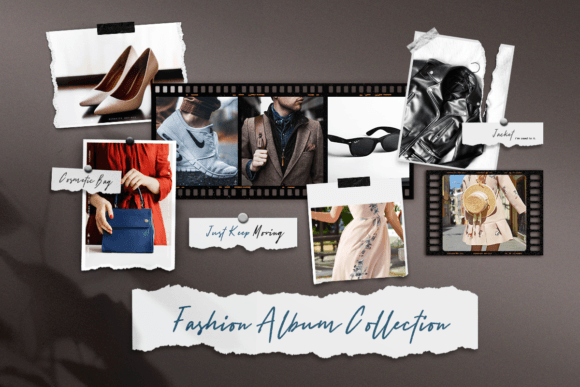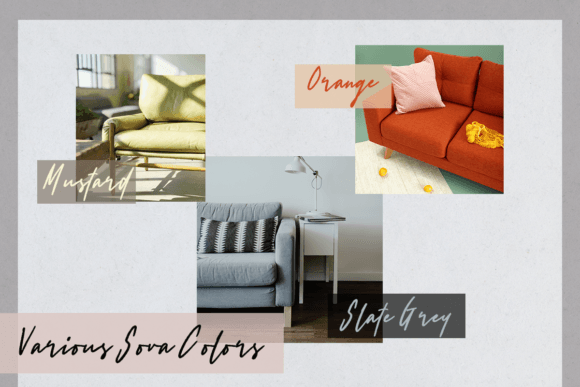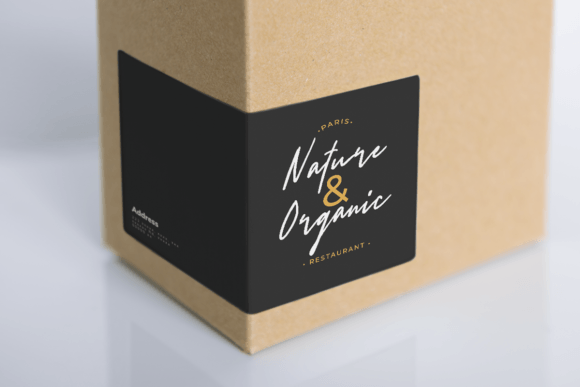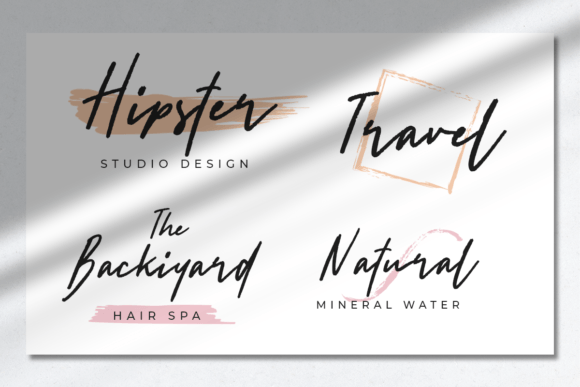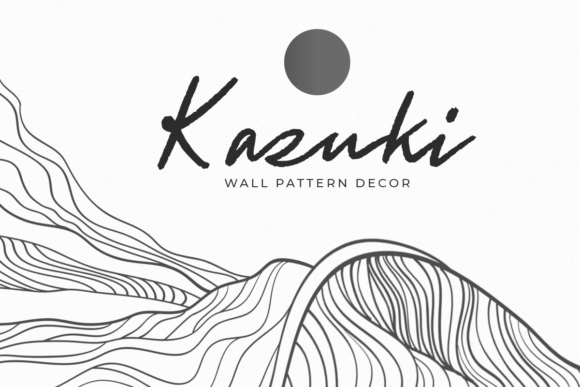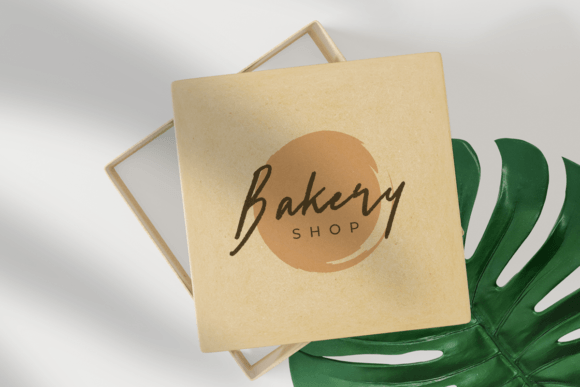
The Elegant Emily Font: A Designer’s New Best Friend
I still remember the time I was working on a wedding invitation project, and my client asked for a font that would make their special day feel like a fairytale. I scoured the internet, tried out dozens of fonts, but nothing seemed quite right. That was until I stumbled upon Emily Font. Its elegant, cursive strokes and beautiful swashes instantly captured the romantic essence of the occasion. I knew right then and there that Emily Font was going to be my go-to for all things wedding-related – and many other design projects, for that matter!
An Honest Review of Emily Font
What I Love About Emily Font ✨
- 💕 Stylish and elegant script font perfect for adding a touch of sophistication to any design
- 🎉 Extremely versatile – works beautifully on wedding invitations, thank you cards, quotes, greeting cards, logos, business cards, and more
- 👍 Well-crafted, with attention to detail and a clear focus on aesthetics
- 💫 OpenType features, including glyphs and stylistic alternates, offer endless creative possibilities
While Emily Font is an exceptional font, there are a few minor things to keep in mind:
- 🤔 Some users might find the font a bit challenging to read at very small sizes – best used at larger sizes for optimal impact
- ⚠️ Limited availability of certain characters or glyphs in certain software or platforms – always a good idea to test and ensure compatibility
The Story Behind Emily Font
Emily Font was designed with the intention of creating a beautiful, elegant script font that captures the essence of handwritten calligraphy. Inspired by classic copperplate engraving and modern calligraphy, Emily Font brings a touch of sophistication and romance to any design.
| Author | sensatype |
| Is Emily Font suitable for body text? | While Emily Font is beautiful, it’s best used for headings, titles, and short paragraphs. For longer body text, a more legible font might be more suitable. |
| Does Emily Font support OpenType features? | Yes, Emily Font includes OpenType features like glyphs, swashes, and stylistic alternates, offering a range of creative possibilities. |